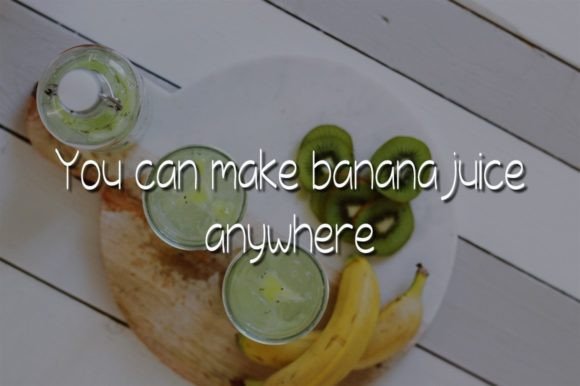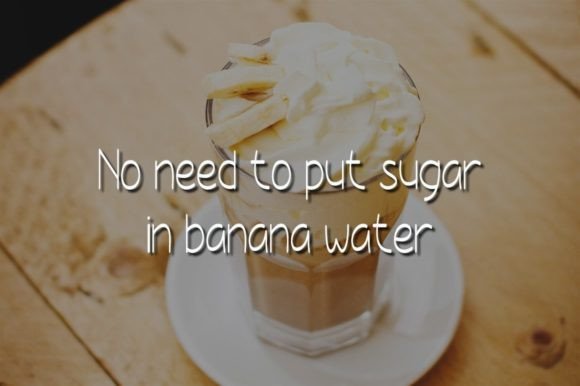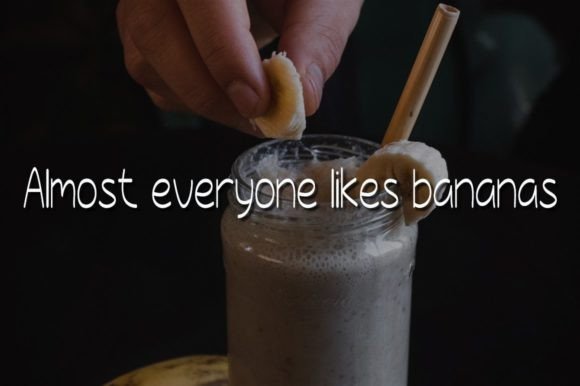
Introducing Banana Water Font: The Perfect Script Font for Creative Designs
Are you a designer, crafter, or writer looking for a unique and creative font to elevate your designs? Look no further than Banana Water Font, a beautiful script font that adds a personal touch to any project. In this article, we’ll explore the features and benefits of Banana Water Font, and how it can be used to enhance your designs, writing, and crafting projects.
What is Banana Water Font?
Banana Water Font is a script font that is made with hand touches and scratches, giving it a distinctive and authentic feel. The font is designed to mimic the imperfections of handwriting, making it perfect for creating unique and personalized designs. With its flowing curves and elegant lines, Banana Water Font is ideal for a variety of creative projects, from writing and designing to sending invitations and letters.
Features of Banana Water Font
Banana Water Font has several features that make it a standout choice for designers and crafters. Some of its key features include:
- Handwritten style: Banana Water Font has a beautiful, handwritten style that adds a personal touch to any project.
- Unique imperfections: The font’s hand touches and scratches give it a unique and authentic feel.
- Elegant lines: The font’s flowing curves and elegant lines make it perfect for creating sophisticated designs.
- Versatile: Banana Water Font can be used for a variety of creative projects, from writing and designing to sending invitations and letters.
Uses of Banana Water Font
Banana Water Font is a versatile font that can be used for a variety of creative projects. Some of the ways you can use Banana Water Font include:
- Writing: Use Banana Water Font to add a personal touch to your writing projects, such as journaling, blogging, or writing letters.
- Designing: Banana Water Font is perfect for designing creative projects, such as brochures, flyers, and posters.
- Sending invitations or letters: Use Banana Water Font to create beautiful and personalized invitations or letters.
- Crafting: Banana Water Font can be used for a variety of crafting projects, such as card making, scrapbooking, and DIY projects.
Benefits of Using Banana Water Font
There are several benefits to using Banana Water Font in your creative projects. Some of the benefits include:
- Unique designs: Banana Water Font allows you to create unique and personalized designs that stand out from the crowd.
- Versatile: Banana Water Font can be used for a variety of creative projects, making it a great addition to your font library.
- High-quality: The font is high-quality and can be used for professional designs.
Tips for Using Banana Water Font
Here are some tips for using Banana Water Font in your creative projects:
- Experiment with different sizes: Try using Banana Water Font in different sizes to see how it looks in various contexts.
- Pair with other fonts: Banana Water Font can be paired with other fonts to create interesting and unique designs.
- Use for headings and titles: Use Banana Water Font for headings and titles to add a personal touch to your designs.
- Have fun: Don’t be afraid to experiment and have fun with Banana Water Font!
Banana Water Font is a beautiful and versatile script font that is perfect for designers, crafters, and writers. With its handwritten style, unique imperfections, and elegant lines, Banana Water Font is ideal for creating unique and personalized designs. Whether you’re looking to add a personal touch to your writing, designing, or crafting projects, Banana Water Font is a great choice. So why not give it a try and see how it can enhance your creative projects?